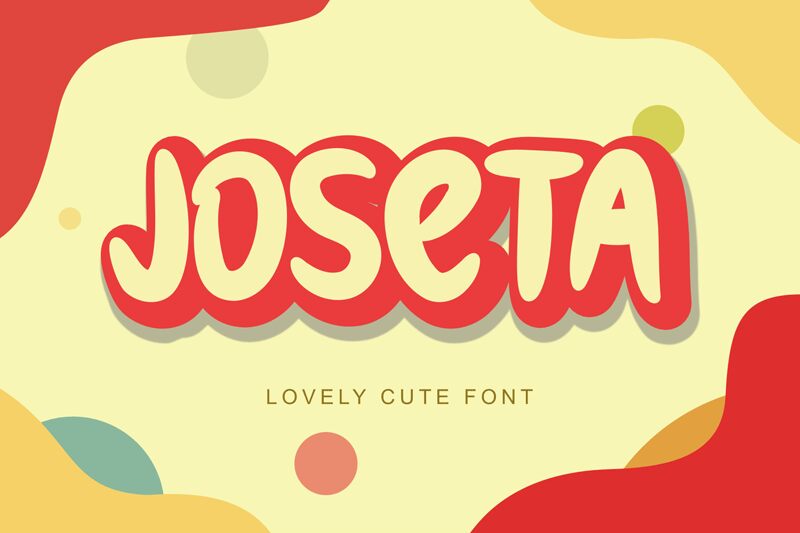
Joseta, the smooth brush semi-bold font designed by Pandan Wangi, is a versatile typeface suitable for a wide range of projects. Its smooth, flowing strokes evoke a sense of creativity and sophistication, making it perfect for branding materials for luxury goods or high-end services. The semi-bold weight offers just the right amount of emphasis and impact without being too heavy-handed, making it ideal for headlines and titles in editorial design. Joseta's elegant yet approachable style also lends itself well to wedding invitations or other special event materials. With its unique combination of style and substance, Joseta is sure to make any project stand out.